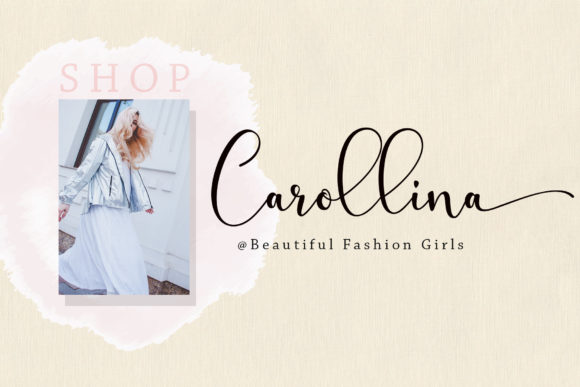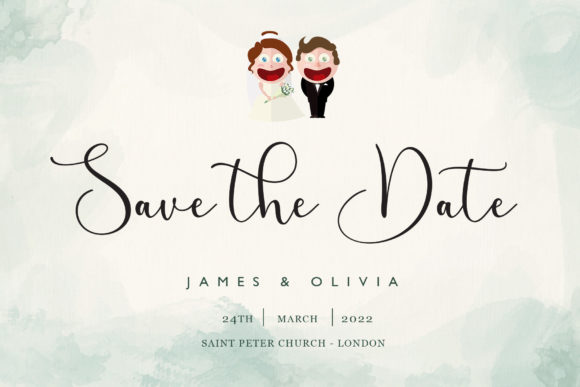
Beasley Font
db-ku.com - Script & Handwritten -- Beasley is a beautiful light handwritten font with a unique feel and a stunning impact. It will add a luxury spark to any design project that you wish to create! This font is PUA encoded which means you can access all of the amazing glyphs and ligatures with ease!